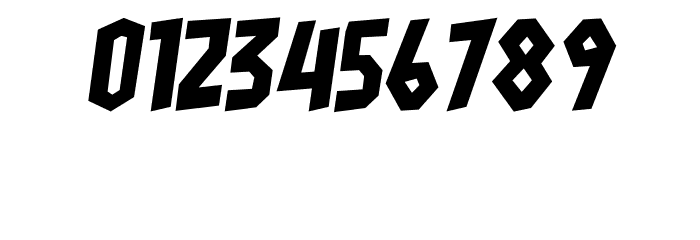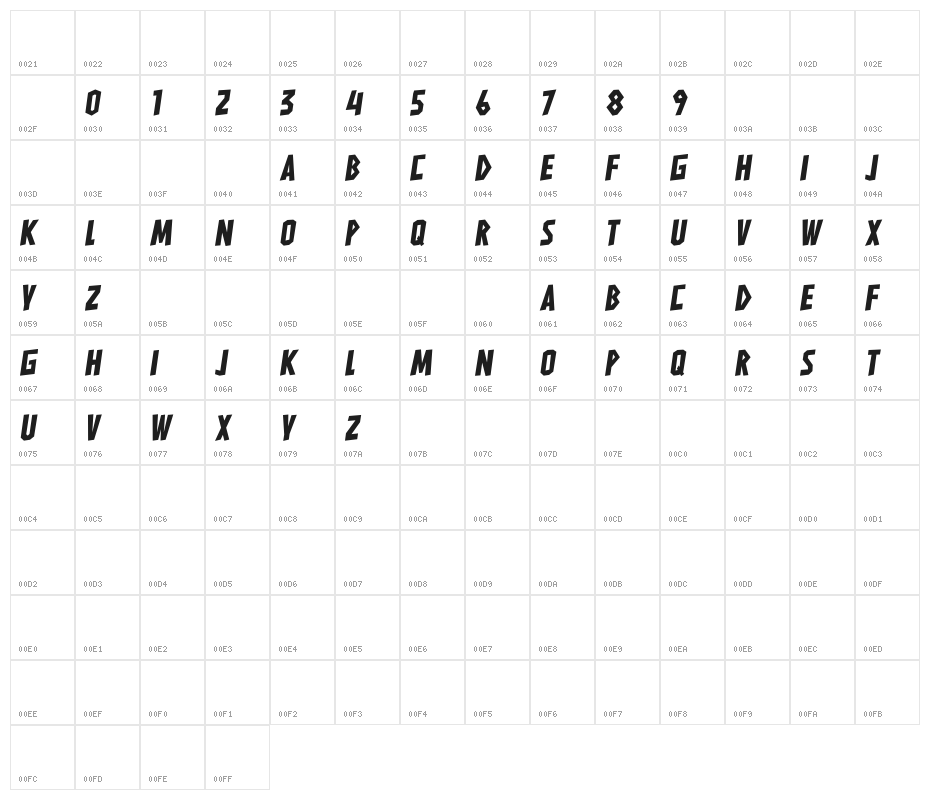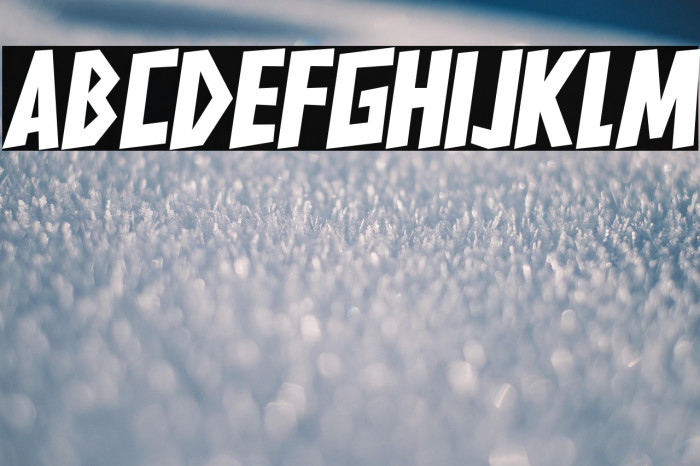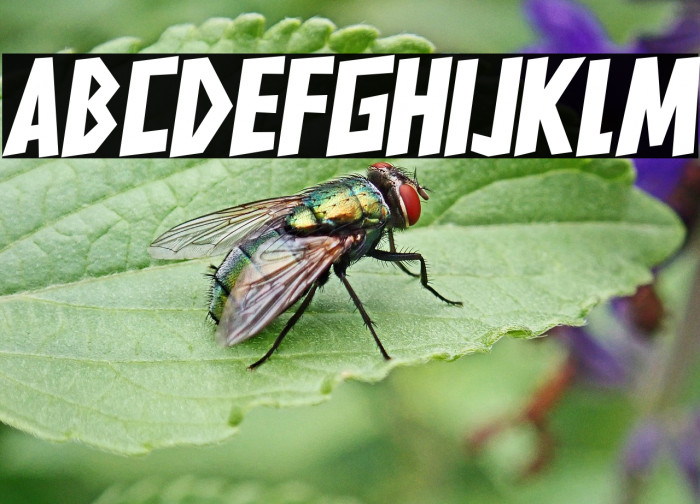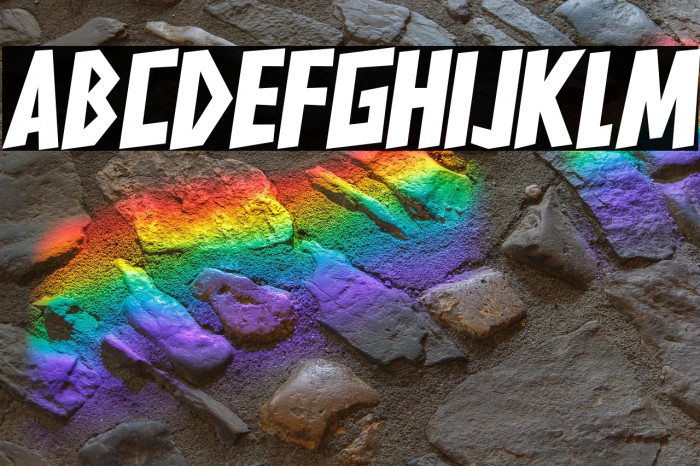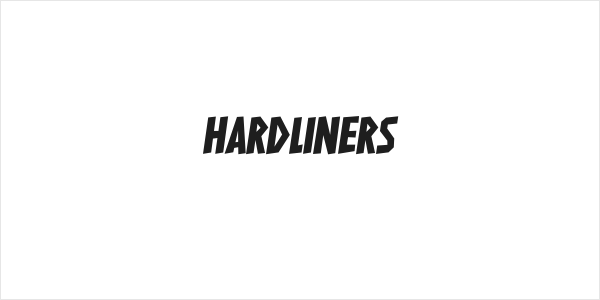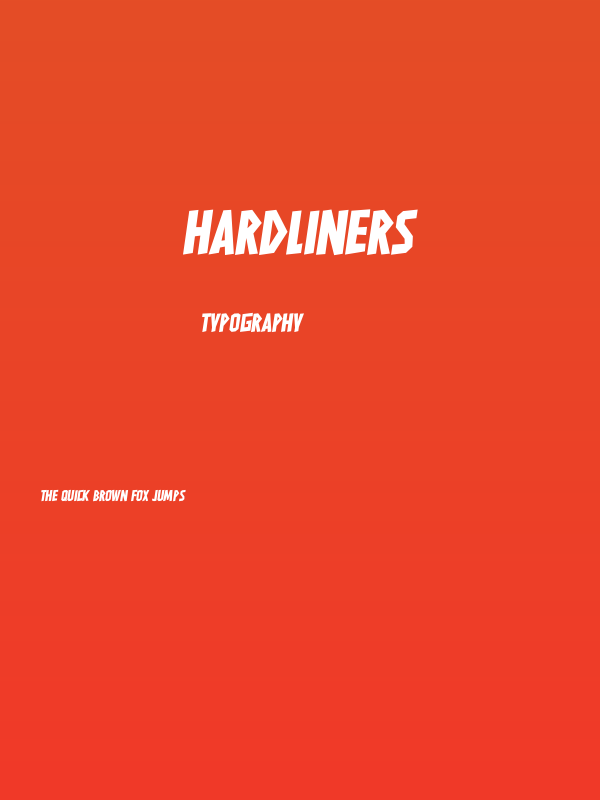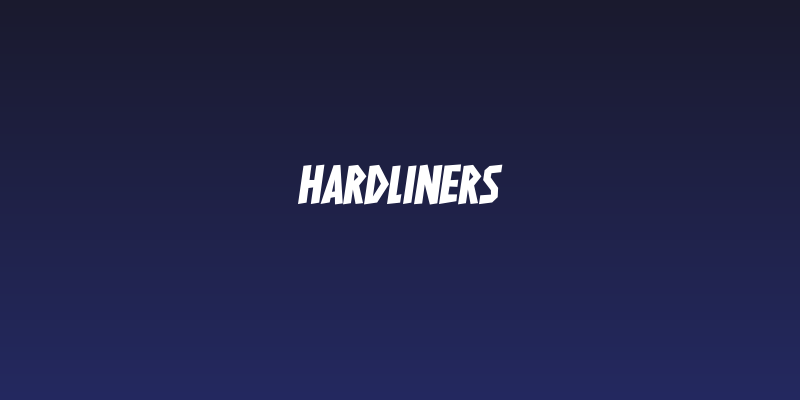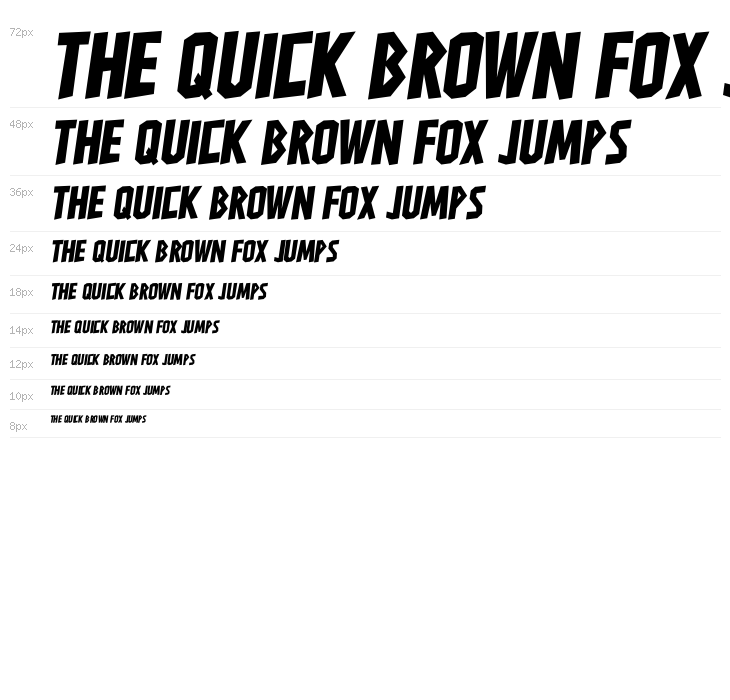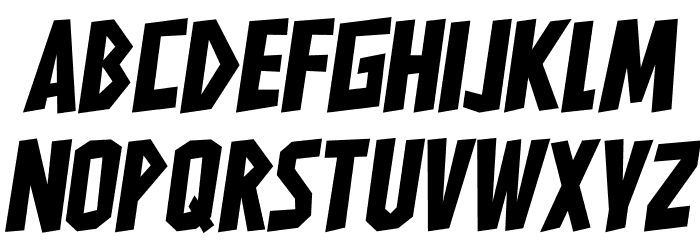
HARDLINERS Font
HARDLINERS Description
This bold and dynamic font features sharp, angular lines and a distinct slant, giving it a sense of motion and energy. The uppercase letters are prominent and commanding, while the lowercase letters maintain the same angular style, ensuring consistency across all text. The numbers are equally bold, with a geometric flair that complements the overall design. This font's aggressive and modern aesthetic makes it ideal for projects that require a strong visual impact.
| Proposed Projects | Perfect for sports branding, action movie posters, video game titles, and any project needing a bold, energetic typeface. |